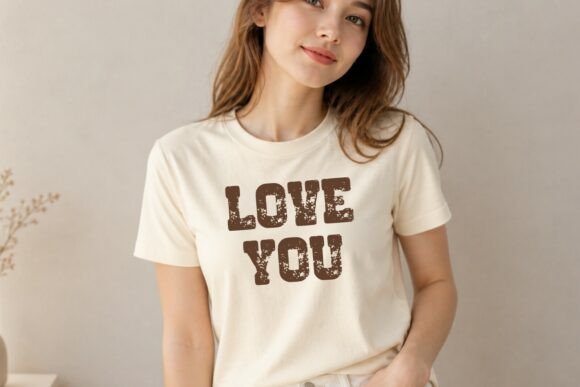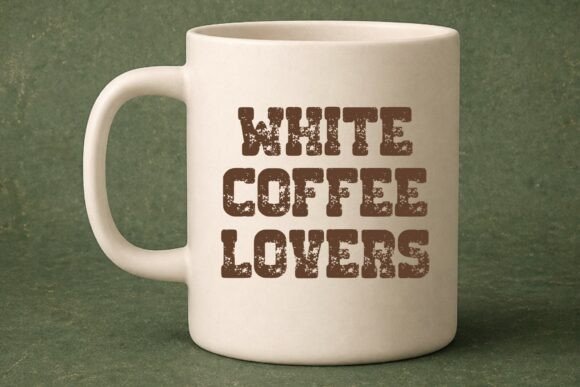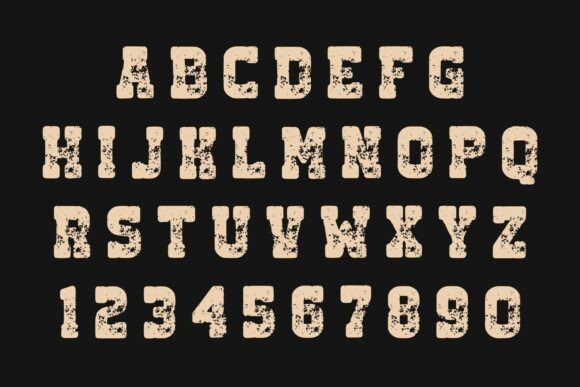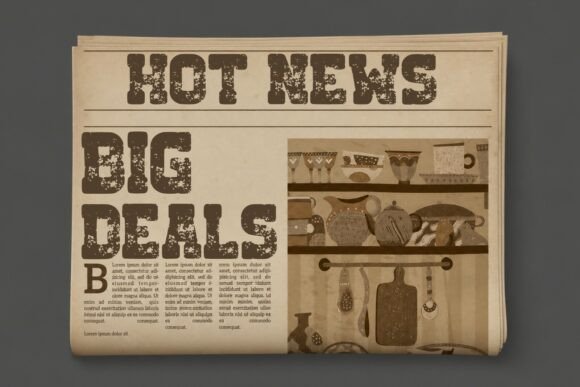
Introduction to Rought Cowboy Font
Remember the moment when you stumbled upon the perfect font for your creative project, and it all came together? The excitement, the sense of accomplishment, and the joy of seeing your vision take shape. For many designers, the Rought Cowboy Font is that moment. Its bold, vintage western style has been a game-changer in the world of graphic design, and we’re here to dive into what makes it so special.
Whether you’re working on a branding project, creating a poster, or designing a t-shirt, the Rought Cowboy Font is a high-quality design resource that’s sure to add a touch of authenticity to your work. With its heavily distressed and textured style, it’s perfect for giving your projects a worn, rustic look that’s reminiscent of classic cowboy signage and old western posters. And the best part? It’s available for free download, making it a valuable addition to any designer’s toolkit.
Key Features of Rought Cowboy Font
• High-quality, bold and distressed font design perfect for creative projects that require a rugged touch.
• Unique, hand-drawn design with a transparent background, allowing for easy layering and customization in your design project.
• Perfect design resource for creatives working on western-themed projects, such as country music posters, rodeo advertisements, or cowboy-inspired artwork.
• Can be easily paired with other fonts to create a unique and eye-catching typography style.
Honest Review: Rought Cowboy Font
I recently stumbled upon the Rought Cowboy Font, and I must say it’s been a great addition to my design library. As a designer, I’m always on the lookout for high-quality fonts that can elevate my creative projects.
What works well is the font’s rustic charm, which is perfect for designs that need a touch of ruggedness. The font’s bold lines and distressed texture make it stand out from other fonts in its category. It’s also a free download, which is a huge plus for designers on a budget.
• ✨ High-quality design that’s perfect for creative projects
• ✨ Rustic charm that adds a touch of ruggedness to designs
However, there are a few limitations to consider. The font’s transparent background can make it difficult to use on certain designs, especially those with complex backgrounds. Additionally, the font’s distressed texture may not be suitable for all design projects.
Overall, I’m impressed with the Rought Cowboy Font. It’s a great addition to any design library, and its high-quality design and free download make it a valuable resource for designers.
Getting the Most Out of Rought Cowboy Font
When using the Rought Cowboy Font, remember to experiment with different font sizes, colors, and styles to create a unique and eye-catching design. You can also use the font in combination with other design elements, such as images or graphics, to create a high-quality design resource.
The Rought Cowboy Font is perfect for a variety of creative projects, including posters, flyers, brochures, and even social media graphics. It’s a great free download for designers who want to add a touch of ruggedness and elegance to their designs.